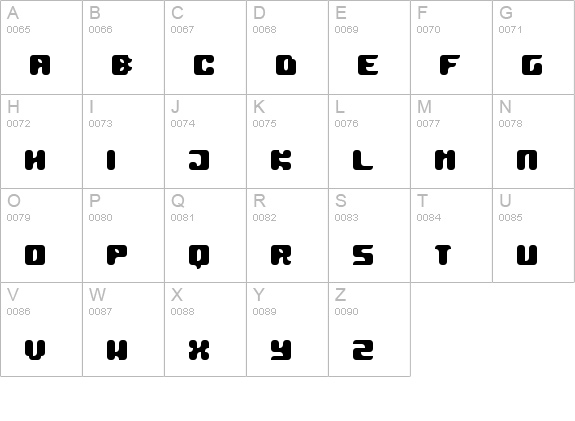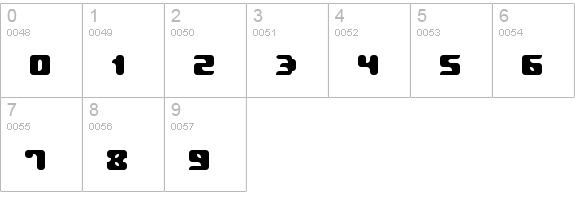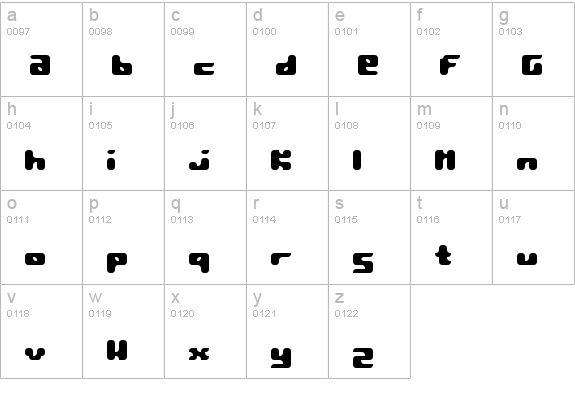
Pormask 2039 Font Details
Pormask 2039 font is a futuristic and sleek typeface that exudes a sense of innovation and sophistication. With its sharp angles and clean lines, this font is perfect for projects that require a modern and edgy look. The geometric shapes of Pormask 2039 font give it a bold and dynamic appearance, making it stand out in any design application. What's even better is that Pormask 2039 font is available for free download at FontsMarket.com. This means you can easily access this stylish font without any cost, making it a great choice for designers and creatives looking to elevate their projects without breaking the bank. Don't miss out on the opportunity to enhance your designs with the contemporary style of Pormask 2039 font, now conveniently available for free at FontsMarket.com.